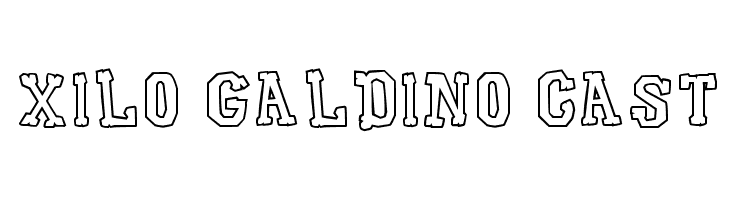
( Fonts by Galdino Otten - galdinootten.com )
A bold, decorative font with a unique outline and vintage appeal.
( Fonts by Galdino Otten - galdinootten.com )
A bold, handcrafted font with a rugged, organic appearance.
( Fonts by Galdino Otten - galdinootten.com )
Bold, italicized font with a distressed, grunge texture and Soviet-era aesthetic.
( Fonts by Galdino Otten - galdinootten.com )
A bold, distressed stencil font with a rugged, vintage aesthetic.
( Fonts by Galdino Otten - galdinootten.com )
A bold, decorative font with an outline effect and whimsical, theatrical style.
( Fonts by Galdino Otten - galdinootten.com )
A bold, decorative font with a whimsical, circus-inspired style.
( Fonts by Galdino Otten - galdinootten.com )
A distressed, italicized font with a vintage, textured appearance.
( Fonts by Galdino Otten - galdinootten.com )
A bold, playful typeface with a comic book style and lively character.
( Fonts by Galdino Otten - galdinootten.com )
A futuristic, circuit-inspired font with intricate linework and electronic motifs.
( Fonts by Galdino Otten - galdinootten.com )
A bold, distressed stencil-style font with an industrial look.